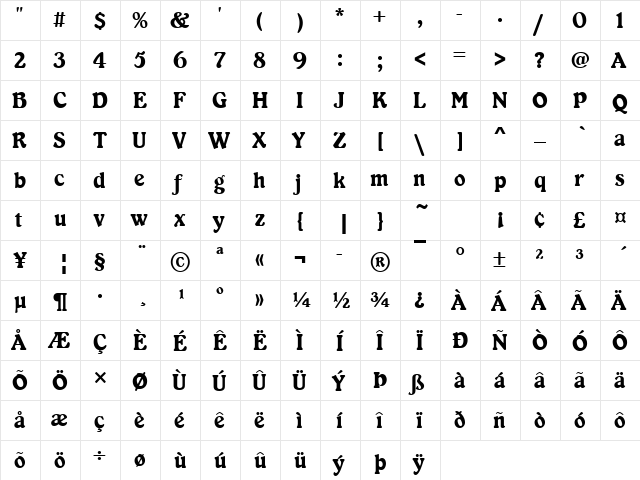
KabarettD Regular Font Preview
KabarettD Regular
KabarettD Regular Font Details
Design Context for KabarettD Typeface
KabarettD is a composed and adaptable typeface that performs quietly and consistently across a wide range of design contexts.